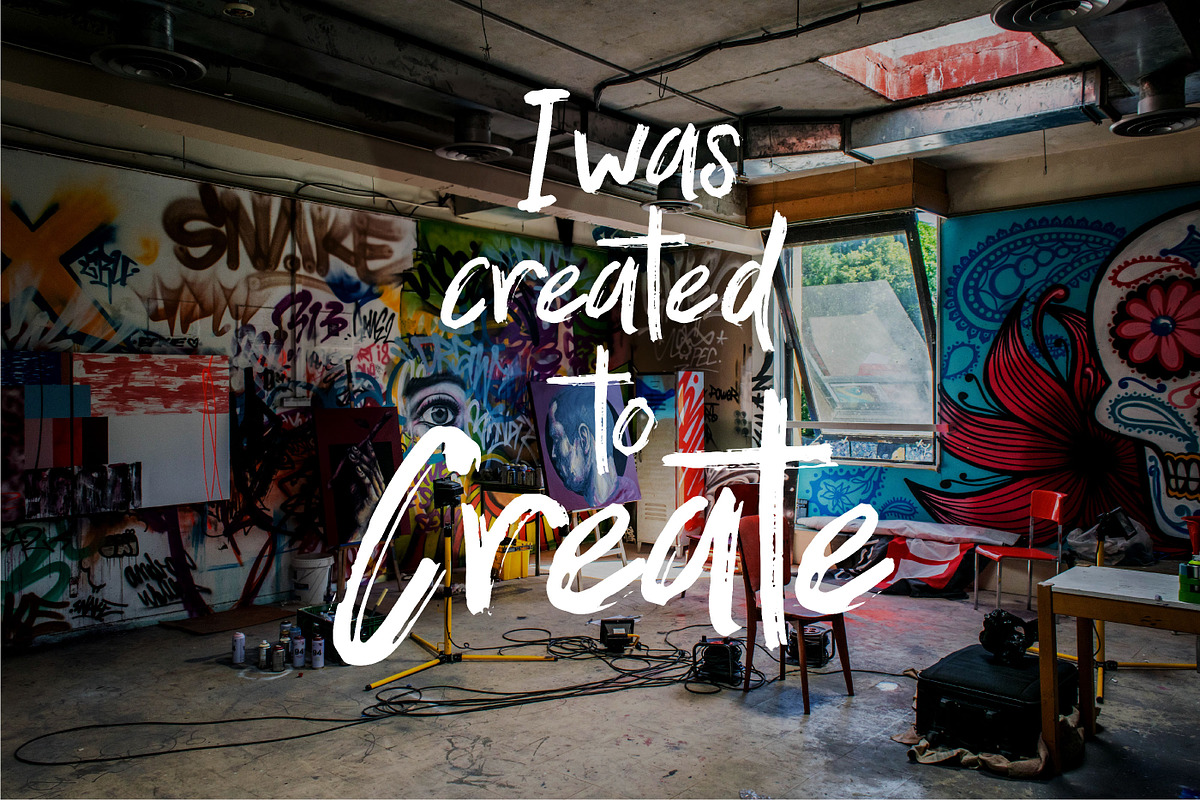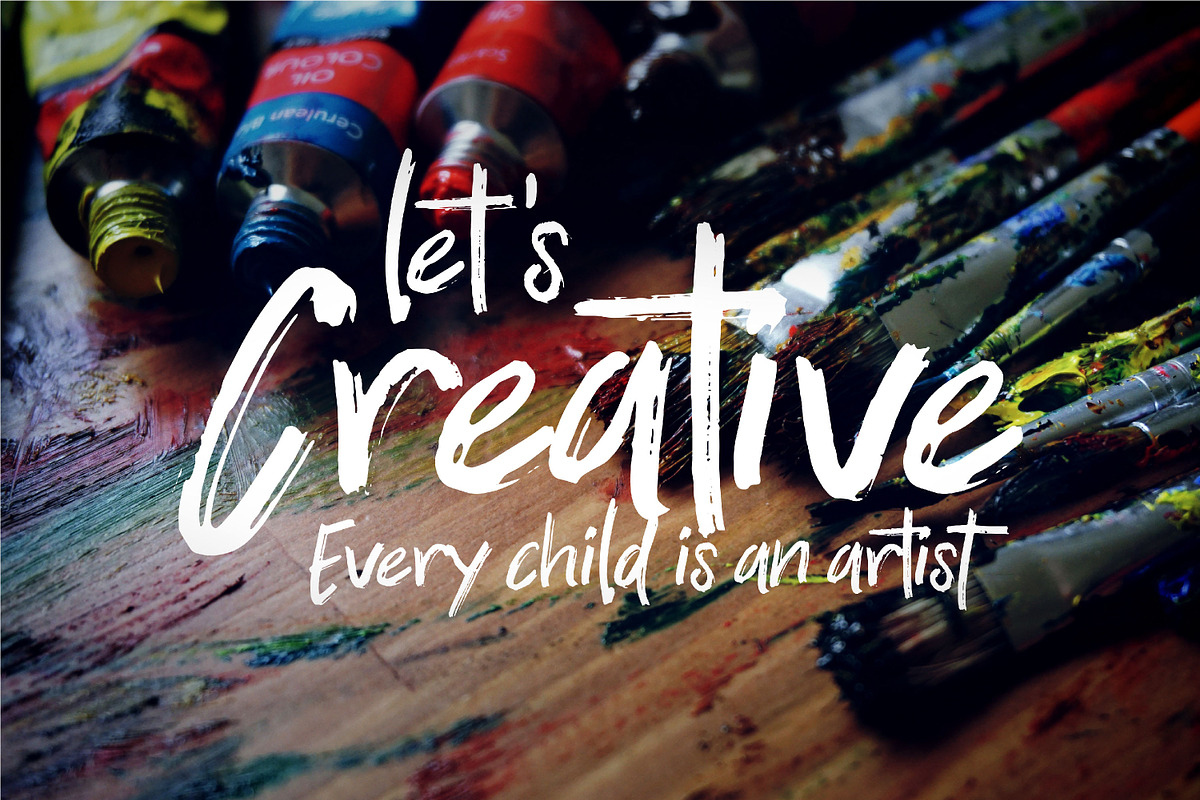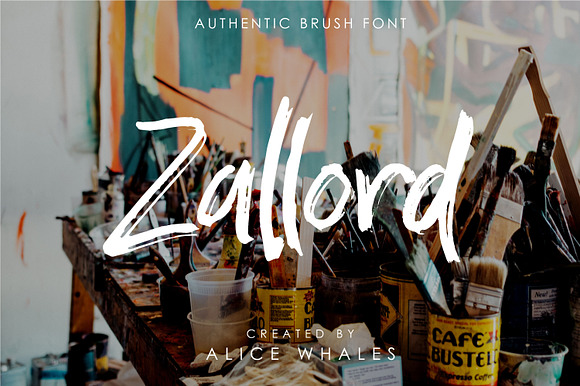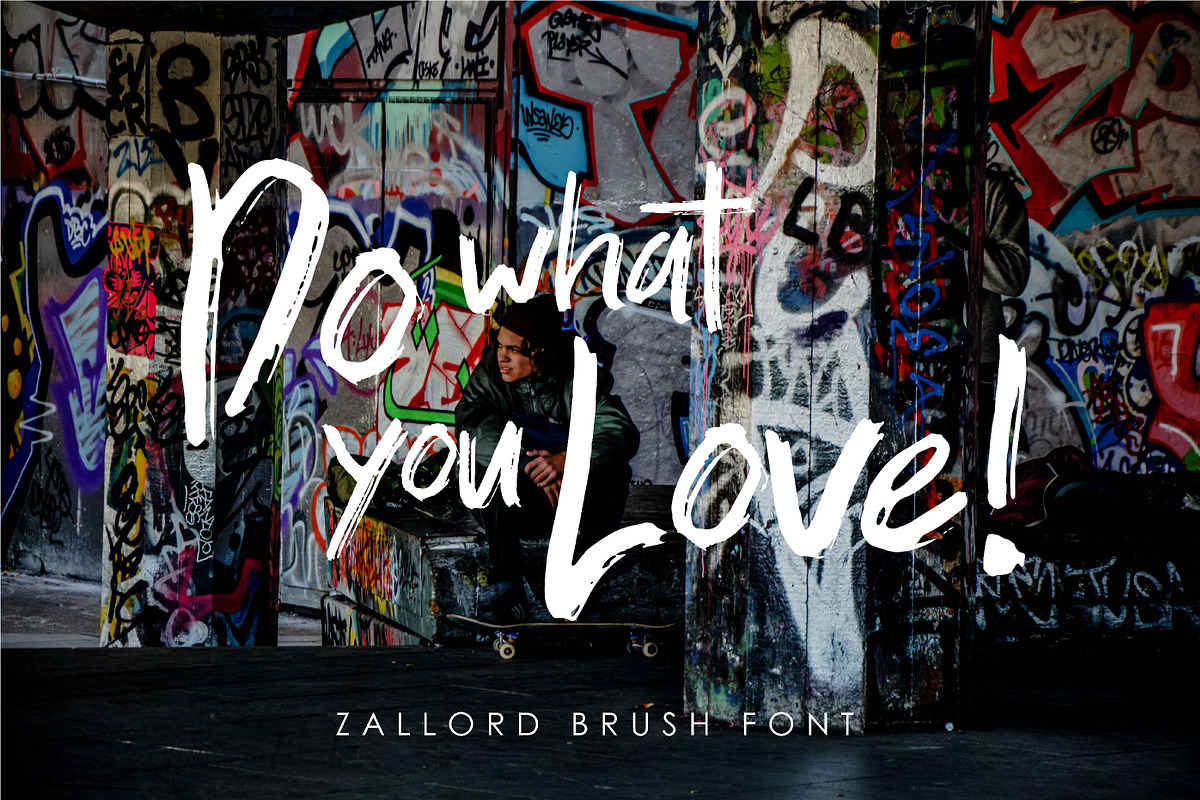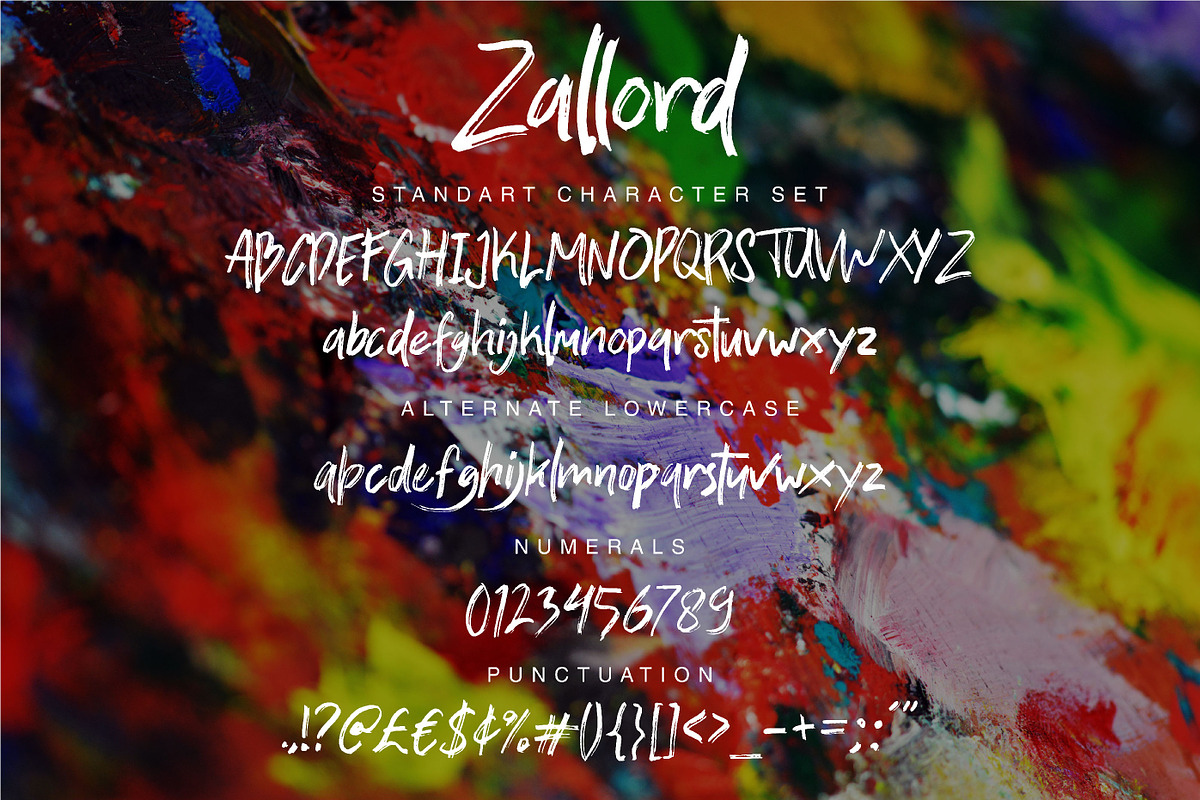
Zallord - Brush Font
Zallord is a unique brush handdrawn .This is an aggressive font with uppercase & lowercase characters as well as numbers, punctuation and a few extra marks. Use this for awesome displays, labeling, clothing, posters, movie titles, album covers, logos, and much more.
Zallord - Brush Font by NendesKombet Studio fits naturally into Branding, posters, packaging, typography.